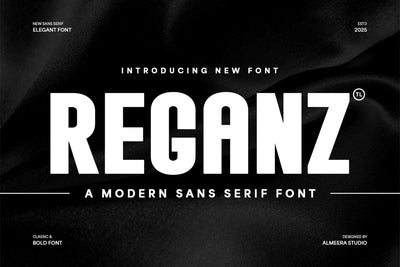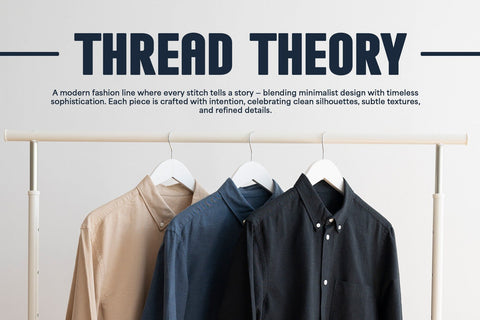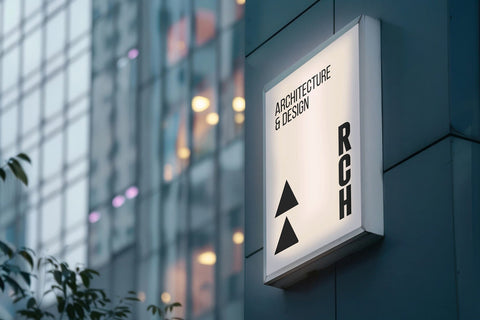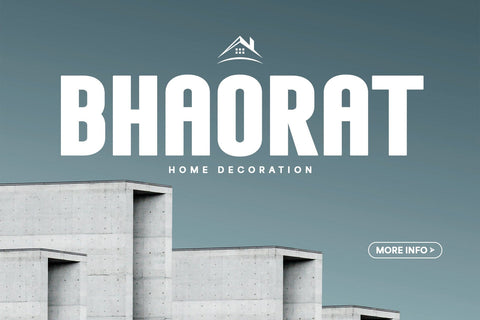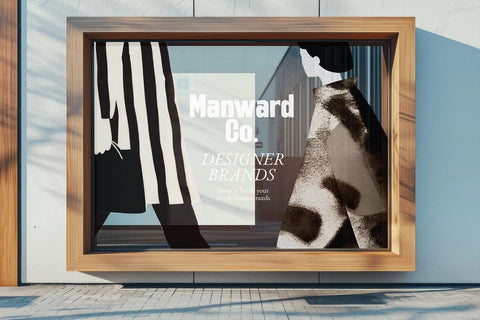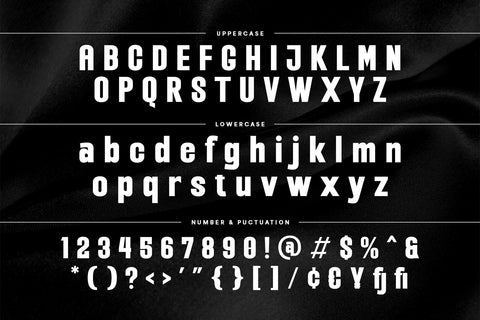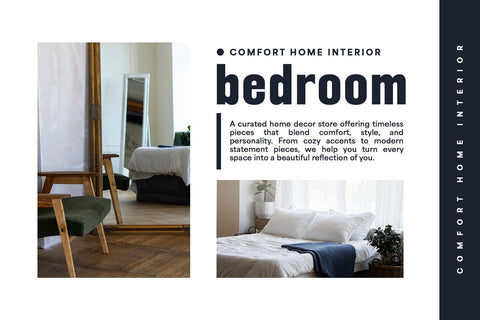
Reganz - A Modern Sans Serif Font
Unleash the dynamism of Reganz, a truly modern sans serif font designed for bold and impactful statements. This versatile typeface is your ideal partner for contemporary branding, powerful advertising campaigns, digital interfaces, and dynamic headlines. Reganz features robust yet clean letterforms that command attention while maintaining excellent readability. Its bold presence and sleek design make it a standout choice for projects that require a fresh, energetic, and professional look. Whether you're crafting a cutting-edge logo or a high-visibility marketing asset, Reganz brings a confident and stylish edge to your typography.